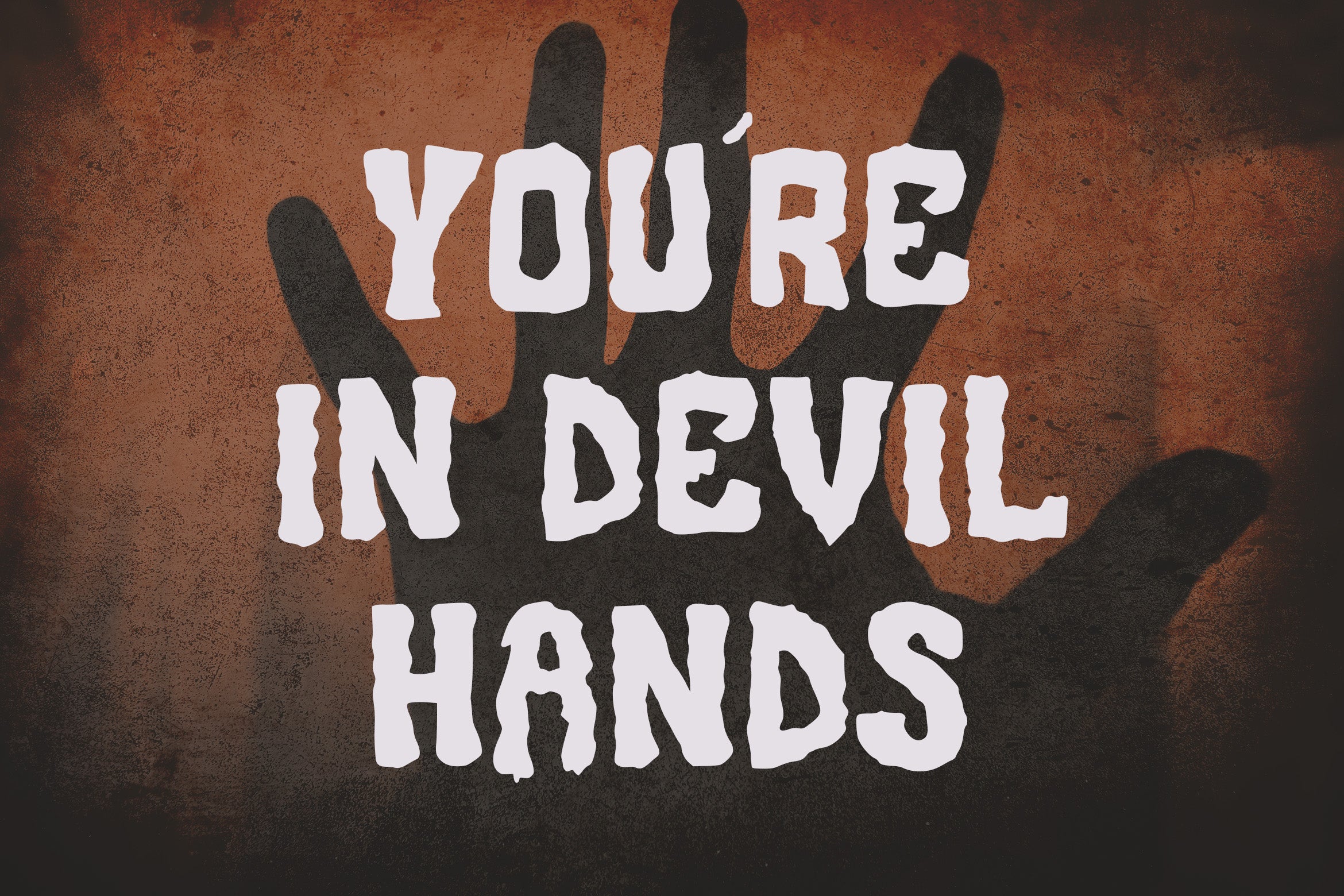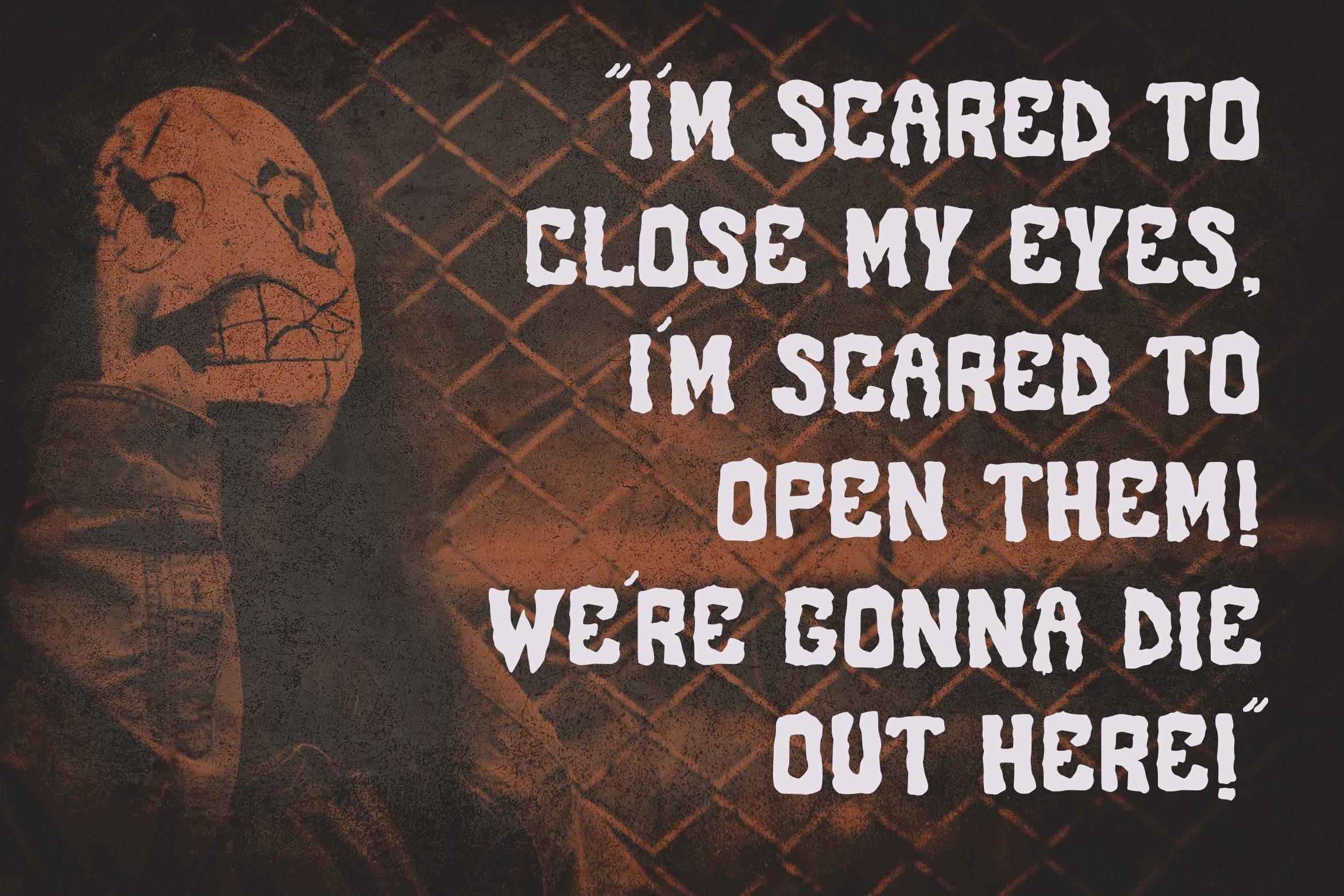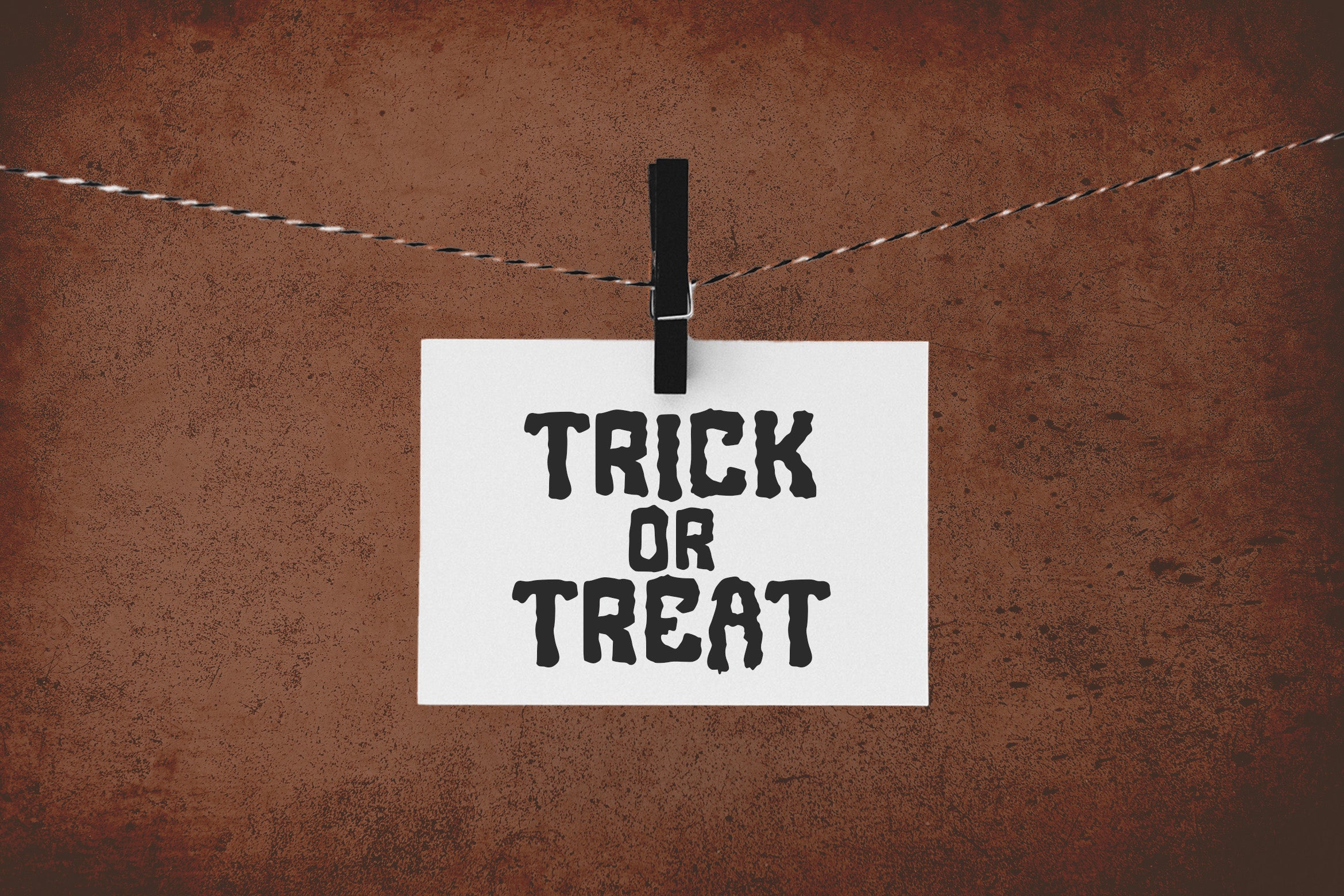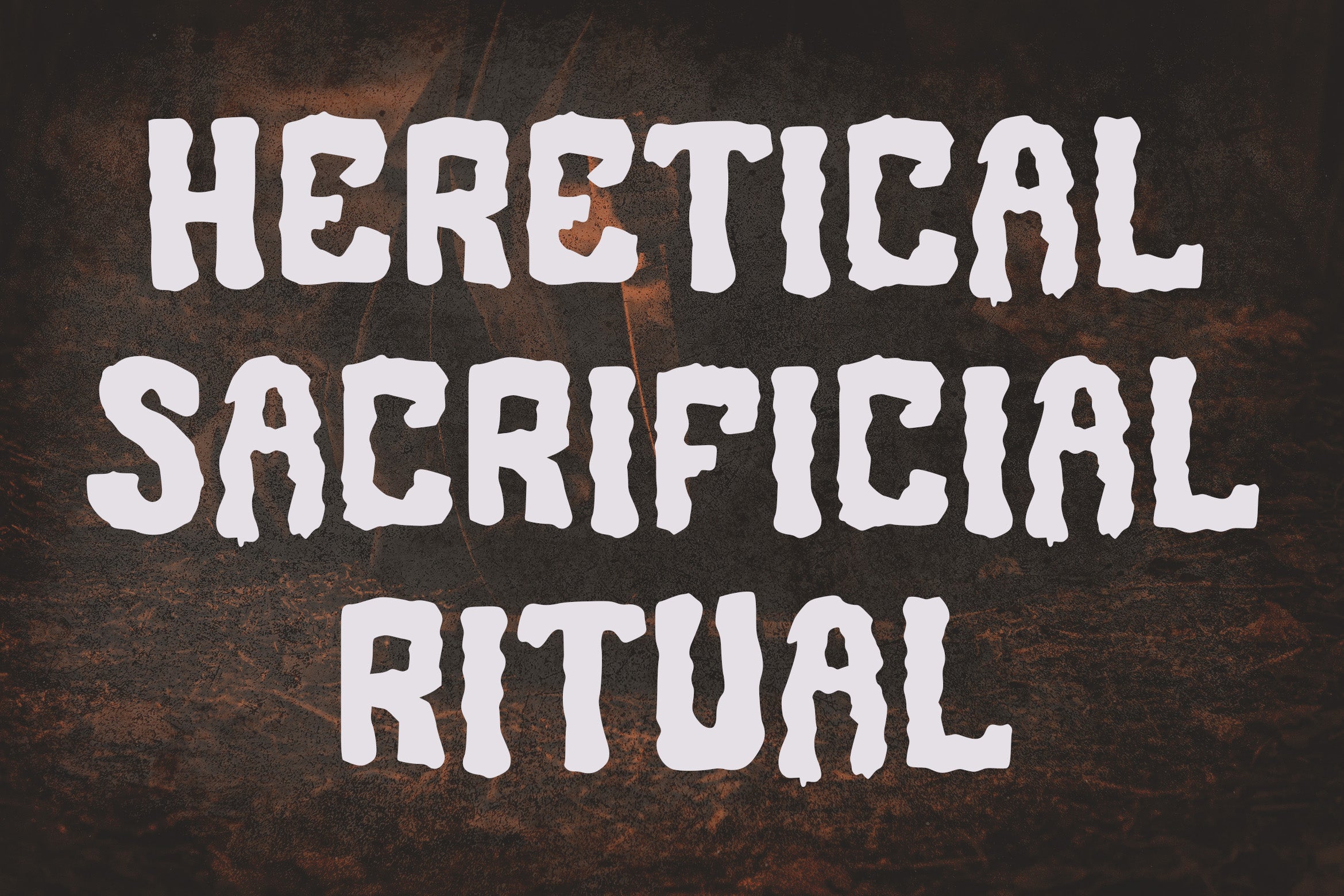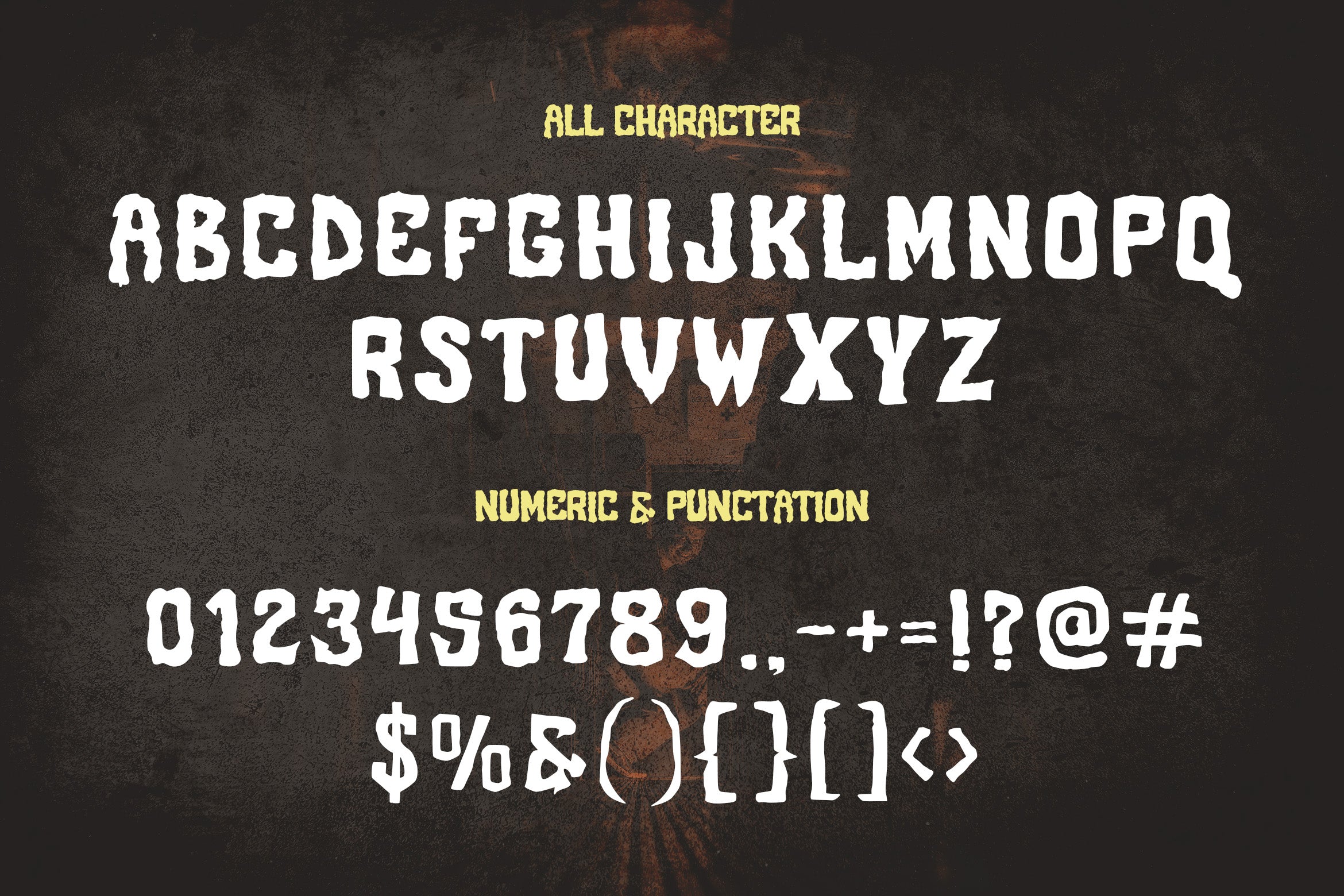
Dark, eerie, and full of mystery. DARK INSIDE created by HATF TYPE is a horror-themed display font that exudes a creepy atmosphere with every curve. With sharp characters, rough strokes, and life-like shapes, this font is perfect for creating suspenseful designs.
DARK INSIDE is designed to haunt horror movie posters, thriller book covers, gothic t-shirt designs, and other creative projects that require a dark and dramatic touch. Let each letter invoke fear and captivate your audience’s eyes in the shadows of darkness.